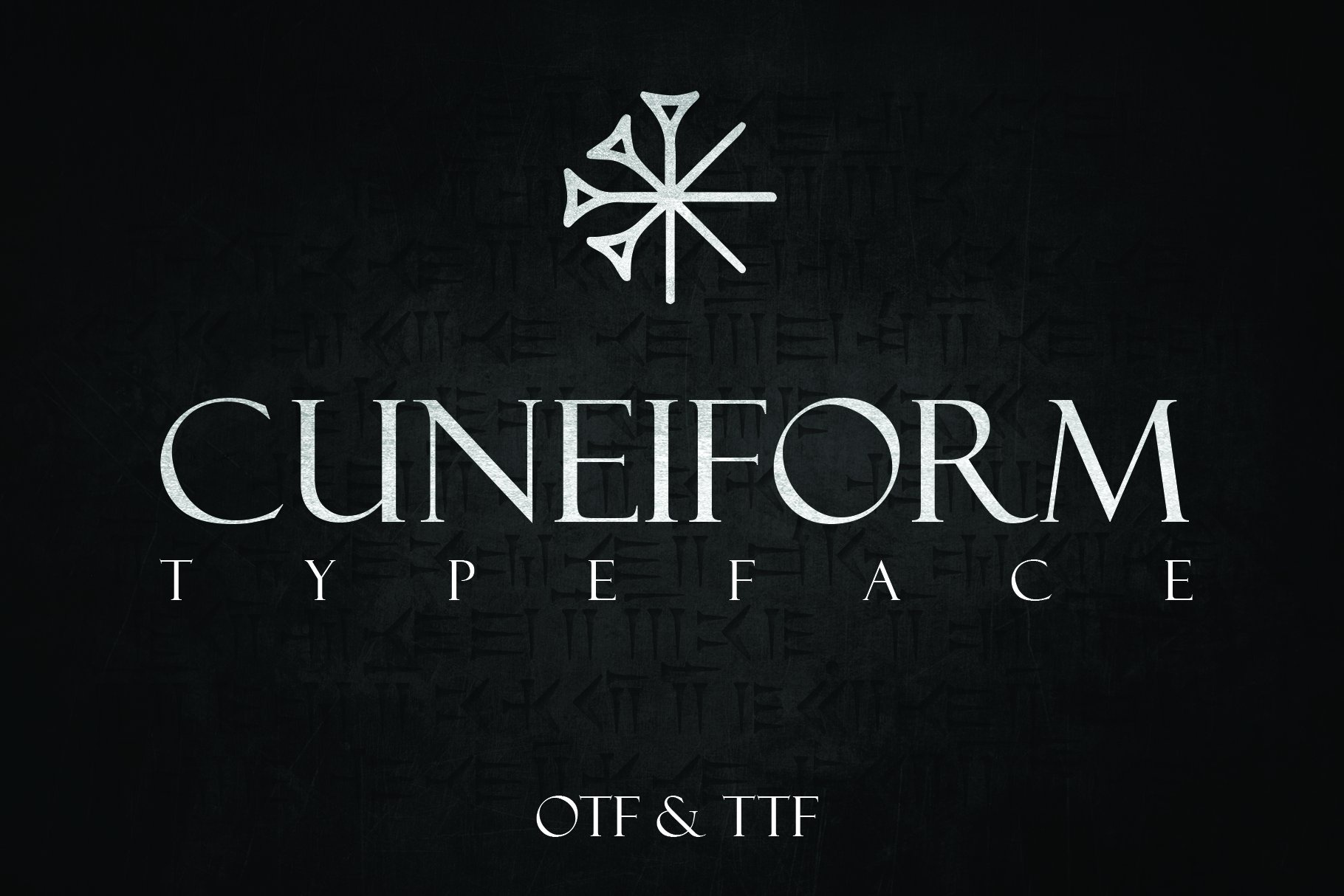
Cuneiform Font
Cuneiform Font is perfect for archaeological museum displays, ancient history publications, educational textbooks, historical documentaries, cultural heritage exhibitions, academic research materials, ancient civilization courses, historical fiction book covers, mesopotamian studies, and scholarly archaeological presentations.
What makes Cuneiform Font so exciting is its extraordinary ability to bridge thousands of years of human civilization through letterforms that echo the world's earliest writing system and carry the profound weight of humanity's first written communications. This historic typeface captures the essence of ancient wisdom and civilizational achievement with characters that seem carved from clay tablets and infused with the revolutionary spirit of mankind's transition from oral to written tradition. The font's archaeological design elements perfectly balance historical authenticity with contemporary functionality, creating an indispensable tool that communicates scholarly authority, historical depth, and cultural reverence, making it essential for educational institutions and cultural organizations dedicated to preserving and sharing humanity's earliest written heritage.
Cuneiform Font comes in multiple font families including Regular, Bold, Light, Ancient, Carved, Condensed, Extended, and Scholarly variations. Each family member maintains the core historical characteristics while offering different archaeological authenticity levels and stylistic approaches to suit various educational and cultural design requirements.
The archaeological precision in Cuneiform Font makes it particularly effective for academic institutions and cultural organizations where conveying authentic historical knowledge and scholarly authority is crucial for educational credibility and cultural preservation missions. Its ancient letterforms work exceptionally well across all educational applications, from textbook layouts to museum displays, maintaining consistent historical authenticity while ensuring modern readability for contemporary audiences.
Educational heritage professionals recognize how Cuneiform Font transforms ordinary academic content into powerful connections with ancient civilizations and humanity's earliest written achievements. The typeface's historical character set includes authentic ancient symbols, scholarly notation, and archaeological elements that enhance the overall educational atmosphere of any historically-focused project.
For creative professionals serving museums, universities, and cultural preservation organizations, Cuneiform Font serves as the perfect foundation for creating memorable educational experiences that capture the essential qualities of historical authenticity, scholarly excellence, and cultural reverence that define successful projects preserving and sharing humanity's ancient written heritage and the profound significance of civilization's earliest communications.